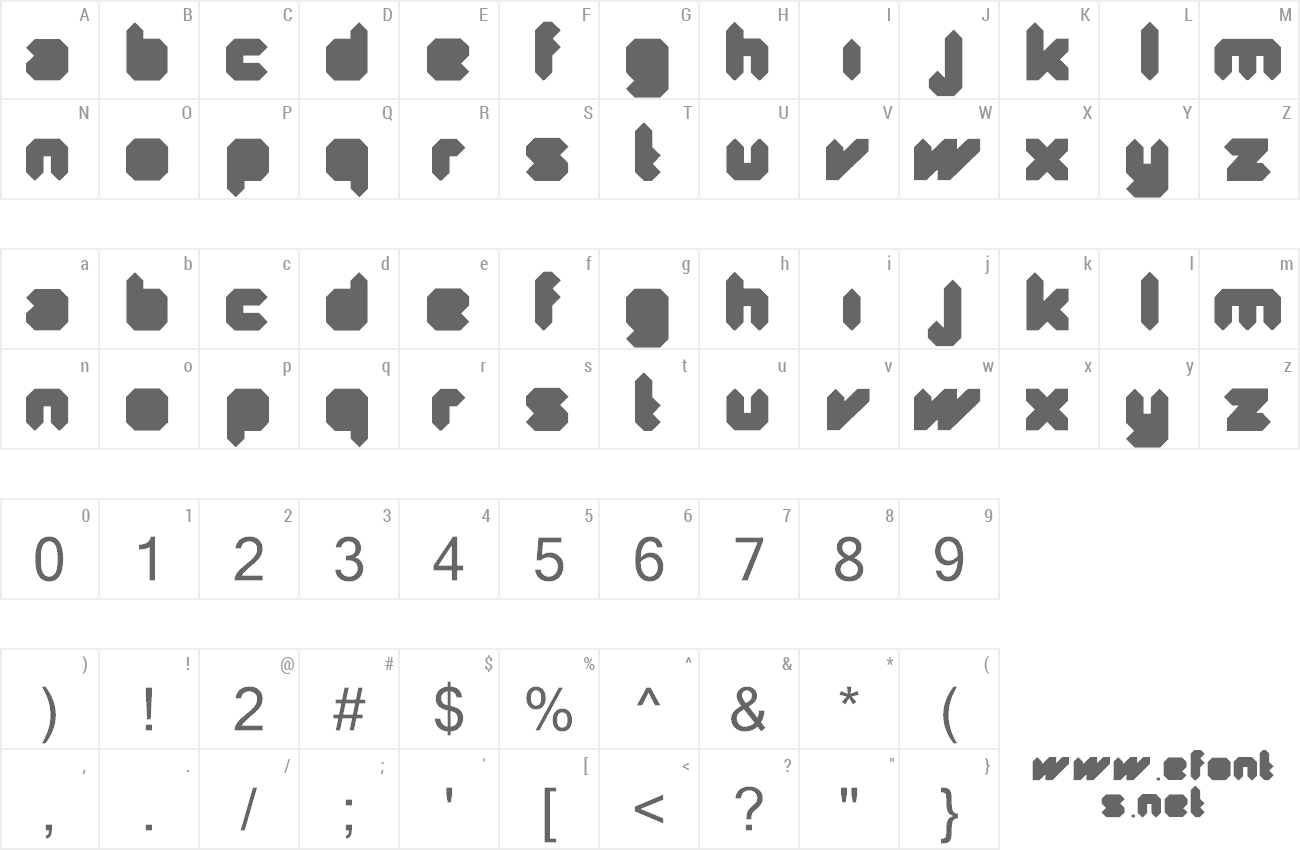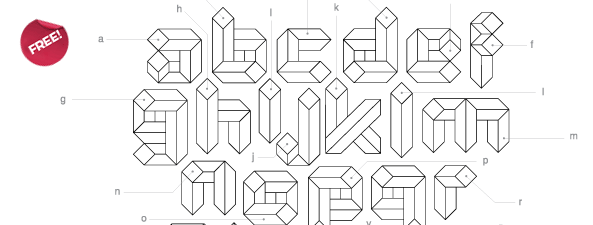
Description: Quad typeface is applicable for any type of graphic design - web, print, motion graphics etc and perfect for t-shirts and other items like logos, pictograms. Format: Opentype (.otf) Compatible: PC & Mac Details: Manual Kerning, Tracking / Pairs Price: free |